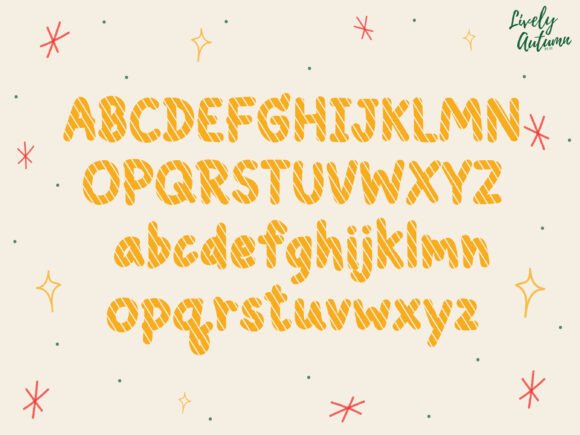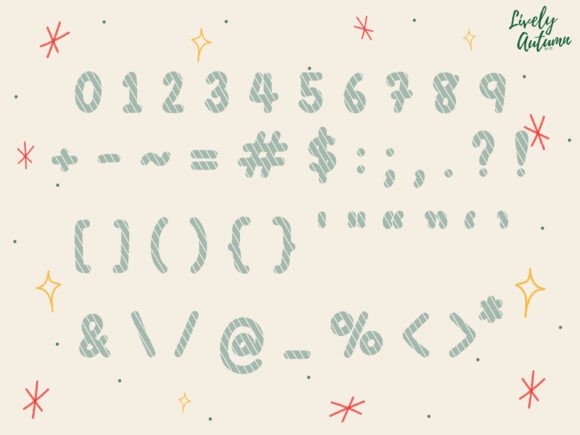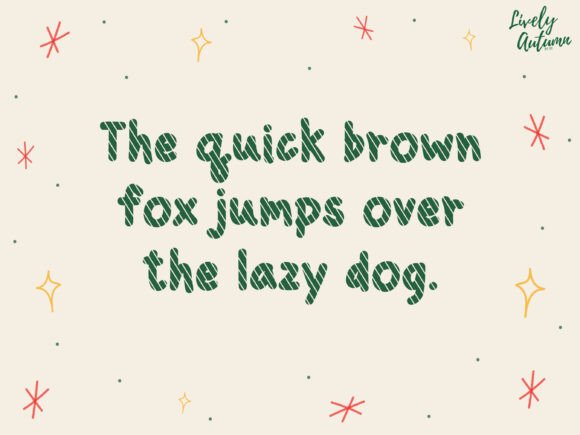
Introduction to Holiday Stripes Font
Holiday Stripes is a playful sans serif font featuring bold, clean letters with fun stripe patterns running through each character.
Perfect for adding a festive or cheerful touch to designs .
Why Choose Holiday Stripes Font?
Holiday Stripes Font offers exceptional quality and versatility, making it a valuable addition to your design toolkit. Whether you’re creating for personal projects or commercial use, Holiday Stripes Font delivers professional results.